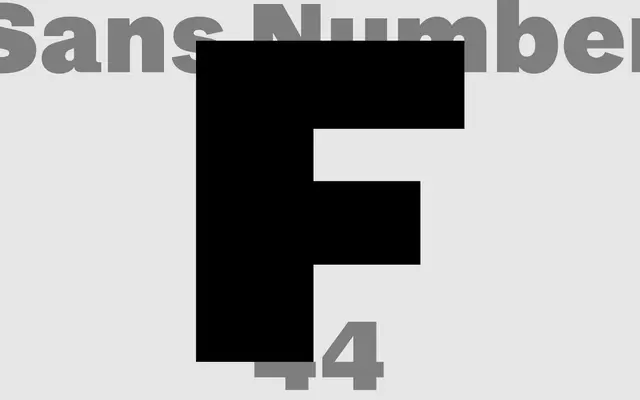
Foundation Sans 44
A ten-weight grotesque sans drawn from historical American, French and Nordic typeface specimens, forming part of A2-Type's 100-font Foundation collection.
Foundation Sans 44 spans ten weights from Thin to Heavy, each with a matching italic, giving it considerable range for both text and display applications. It sits alongside Foundation Sans Wide and Foundation Sans Condensed as width variants within the broader Foundation suite, which also includes serif and Didot sub-families. The revival basis draws on specimens from America, France and Nordic countries, lending the family a grounded, historically informed character without leaning into pastiche.
Part of A2-Type's Foundation revival suite drawing on historical specimens from America, France and Nordic countries; the upright, structured letterforms and broad weight range place it firmly in the grotesque sans tradition.